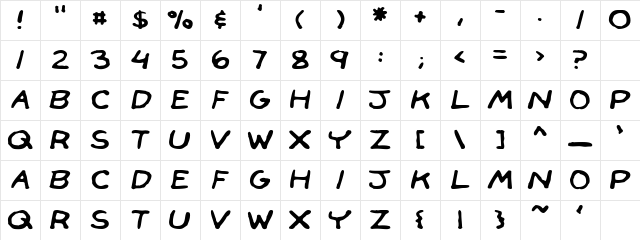
Face Front Regular
Designer: S. John Ross
Design Context for Face Front
Face Front is a composed and adaptable typeface that performs quietly and consistently across a wide range of design contexts.
Pro Tip: Use Face Front in both headline and body roles to test its range before committing to a single application.